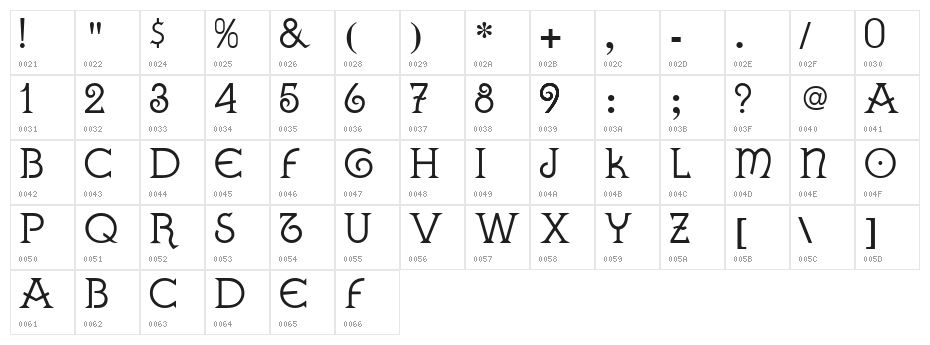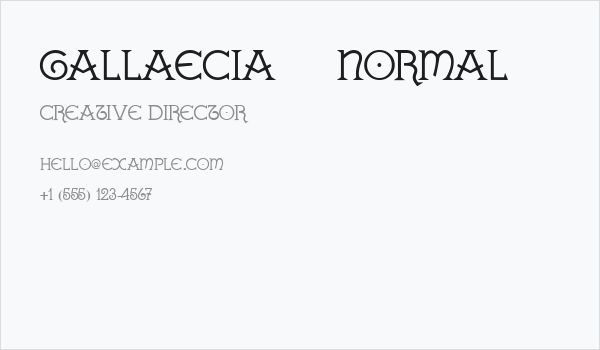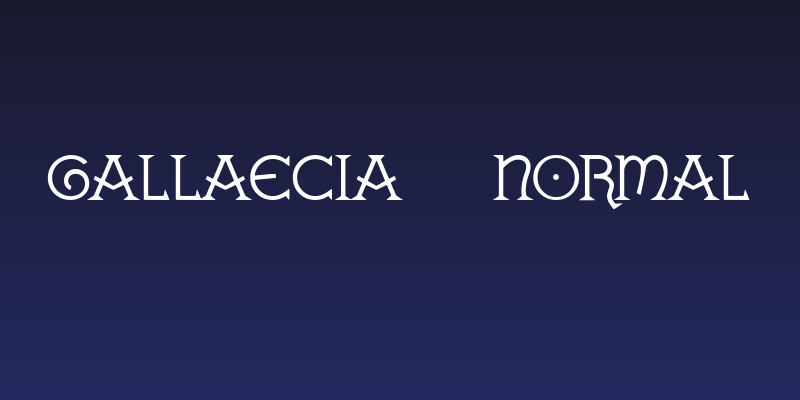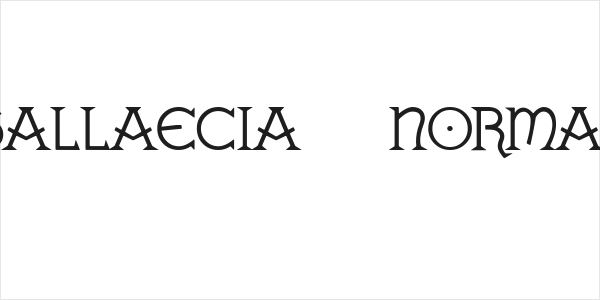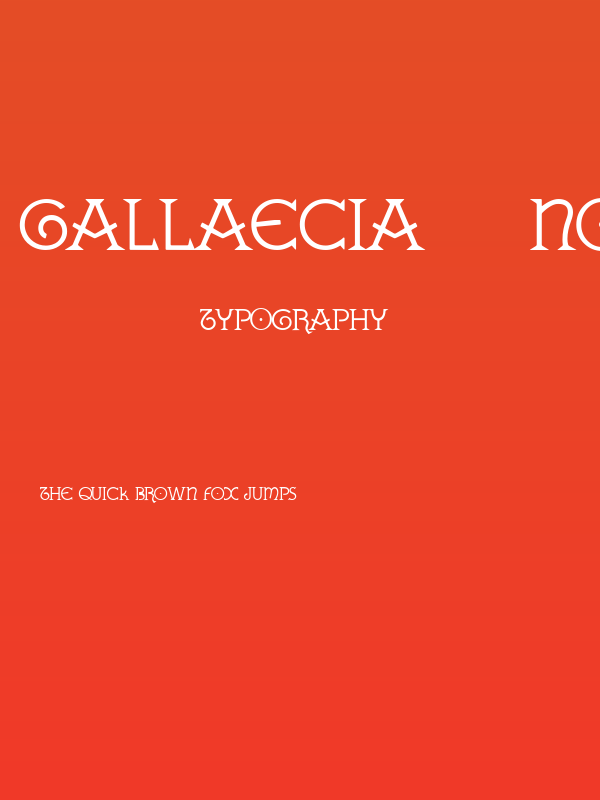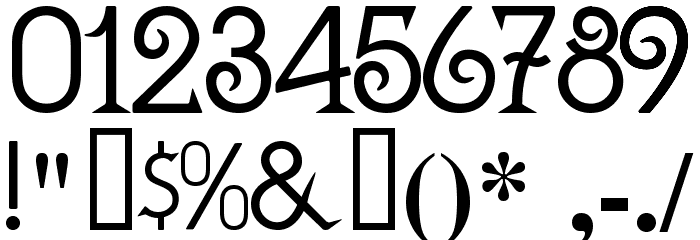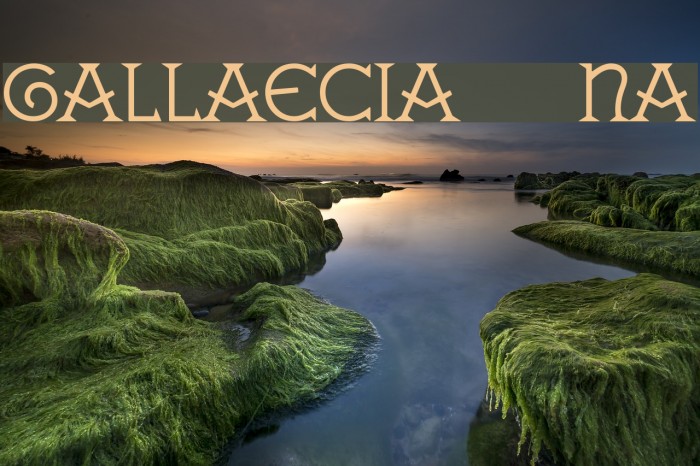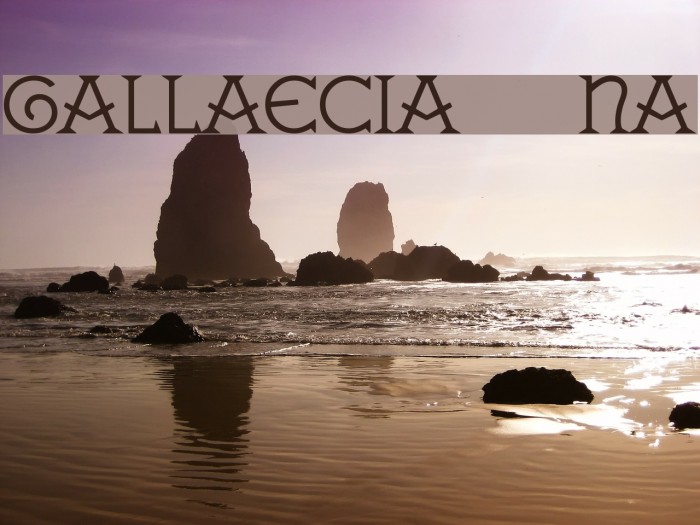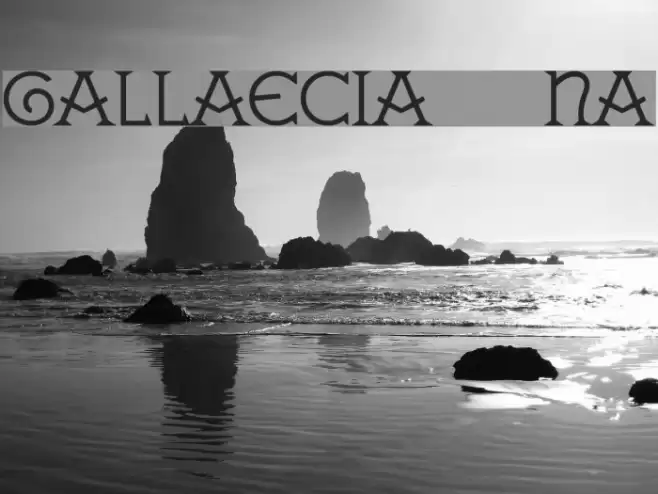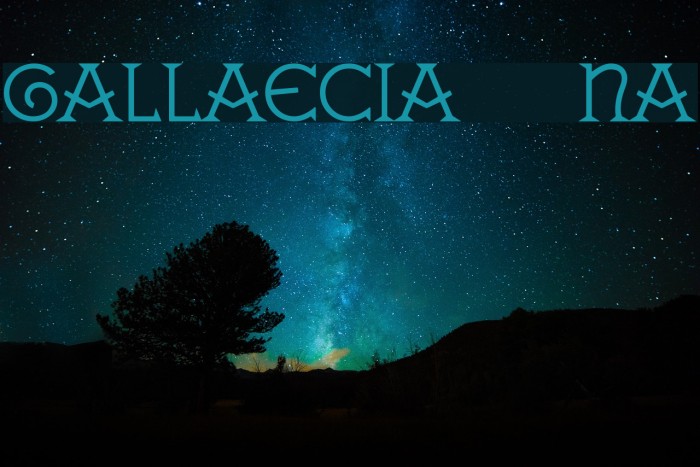
GALLAECIA Normal Font
GALLAECIA Normal Description
This font features a unique blend of traditional and modern elements, characterized by its distinct, sharp serifs and elegant curves. The uppercase letters exhibit a strong presence with their bold strokes and intricate detailing, while the lowercase letters maintain a consistent style, offering a harmonious balance. The numerals are crafted with a similar attention to detail, ensuring readability and aesthetic appeal. Special characters are designed to complement the overall style, making this font versatile for various applications. Its artistic flair and distinctive personality make it suitable for creative projects.
| Overall Style | Classic |
| Use Case | Headlines, Logos, Editorial design |
| Proposed Projects | Ideal for branding, editorial design, book covers, and creative projects that require a touch of elegance and uniqueness. |